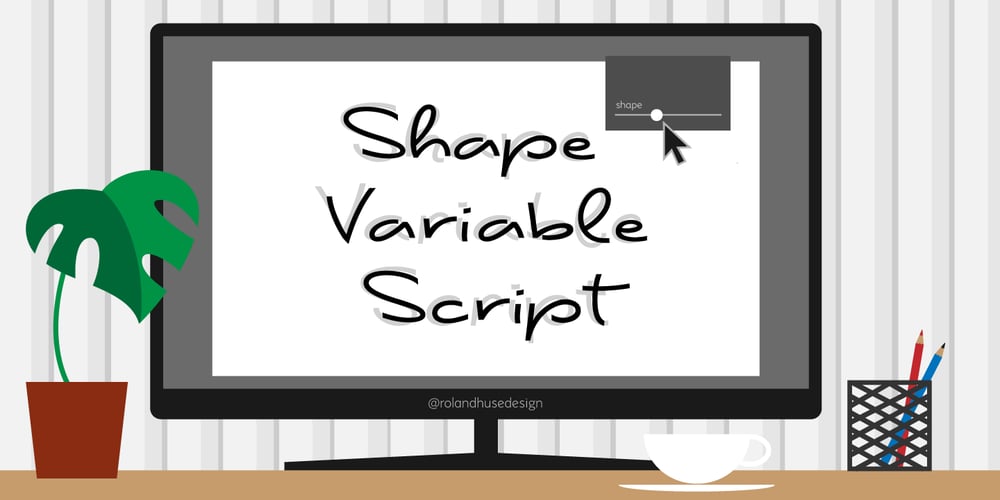
Shape Variable Script Font Family was designed by Roland Hüse and published by Roland Hüse Design. Shape Variable Script contains 1 styles and family package options. A shape-shaky script font that reacts to audio! Thanks to the variable font technology, fonts today can be variable be it weight, width or any other parameters that are defined by values such as shape! Even better: in html, with a bit of css (and in this case, javascript as well) it is possible to animate them between these values. This gave me the idea to create something really fun which is a quirky, informal handwritten font that can react to sound. The html file along with css and javascript is taken from codepen.io and I was using and tweaking it to this specific project. Please read more details in this pdf where you can also find link to a demo and download the txt files:https://drive.google.com/file/d/15J_6g3NgmZKJYO6SrnOHj4Rk7qltkfwE/view?usp=sharingThe character set of this font contains Western, Eastern and South-Eastern Latin accented characters, special characters, basic symbols, punctuation and signs.Best use is with large size and a few words rather than large sentences. I hope you guys like it and it will add up to your next creative project!Have fun and happy creating!